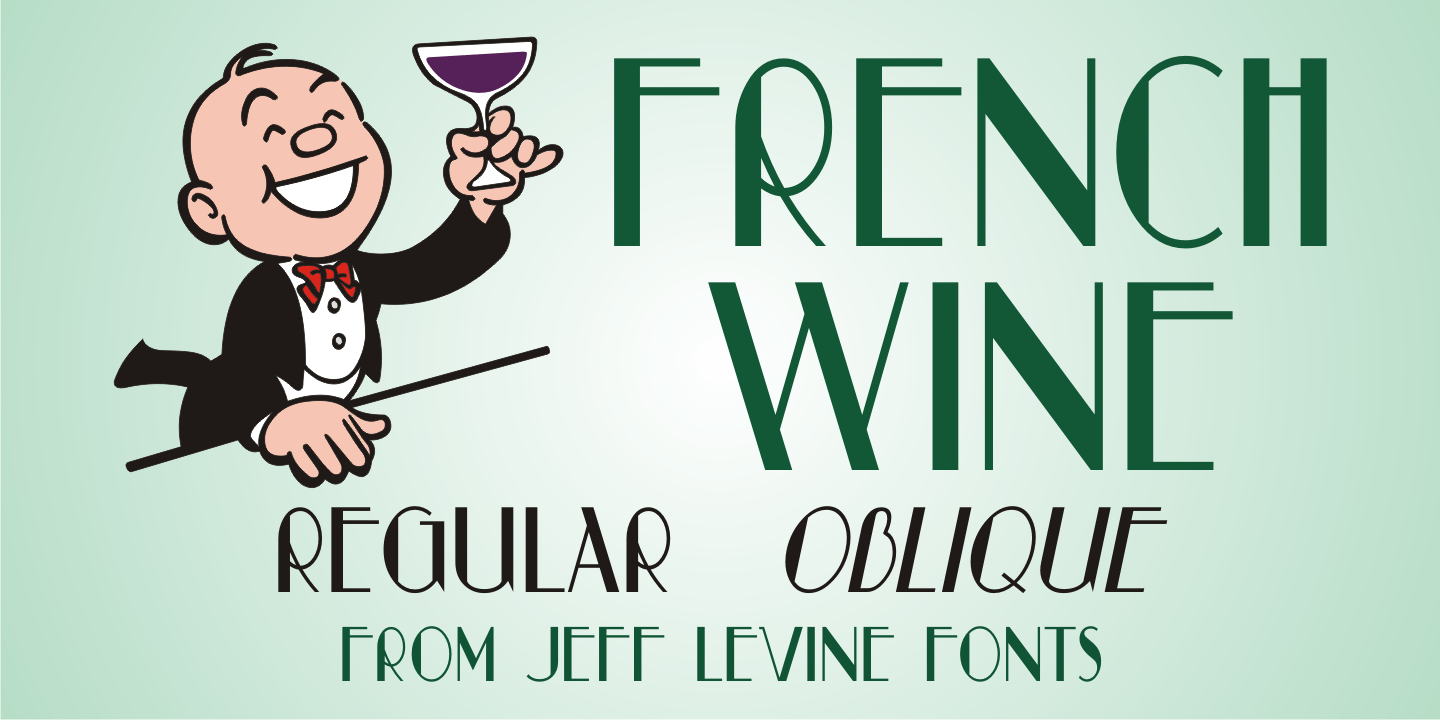
French Wine
French Wine JNL is an Art Deco thick-and-thin type design based on the hand lettering from a vintage poster for Monarch Cabernet Sauvignon wine.
The typeface is available in both regular and oblique versions.